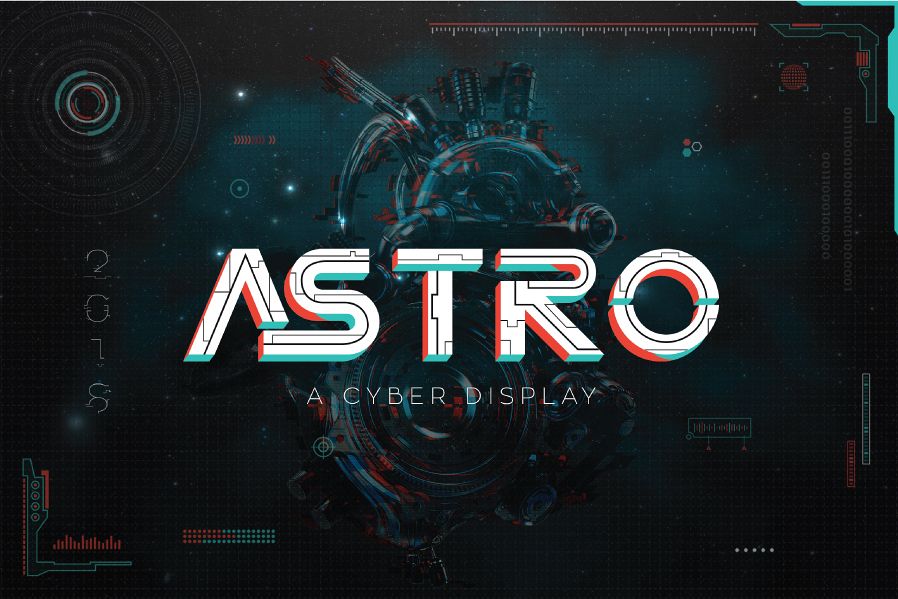
Astro
Introducing Astro!! a new layered typeface from drizy studio, inspired from futuristic robotic, geometric and 3d effect. Astro is a modern, futuristic font layer with upper case characters, ligatures, stylistic, numbers, and punctuation. This font makes way for the creativity of each and every one. Modify, give it colors and blending to instantly give your works a futuristic feel. Astro is great for creating eye-catching headlines and applicable for any type of graphic design web, print, motion graphics, perfect for t-shirts and other items like logos, poster/ flyer, branding, packaging, etc.Astro comes with a full set Regular, Extrude, Extrude Shadow, Cable and Completed version.What you get on the master file ASTRO Font :